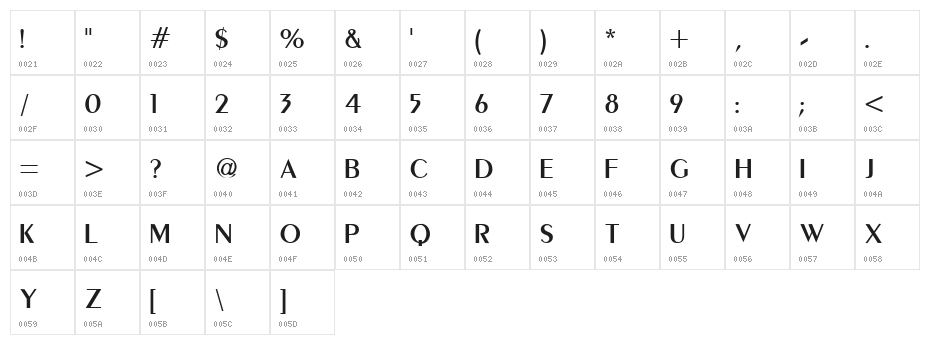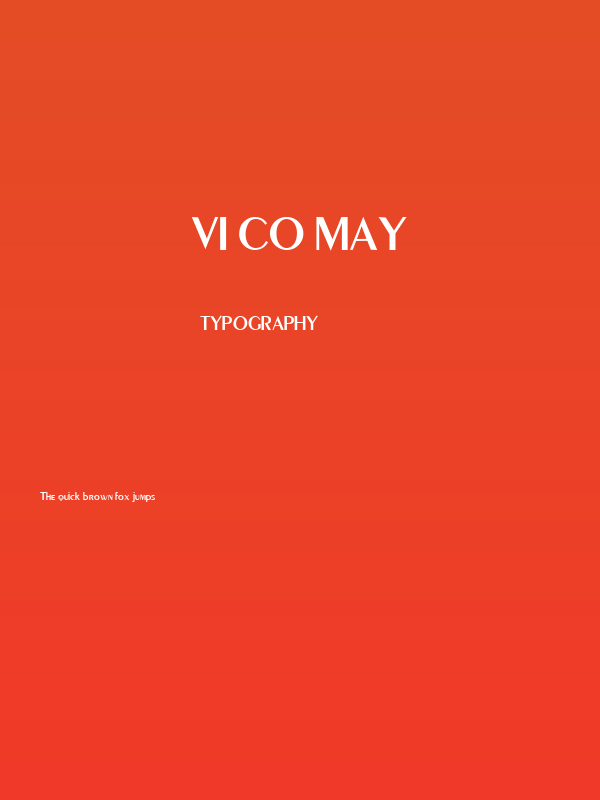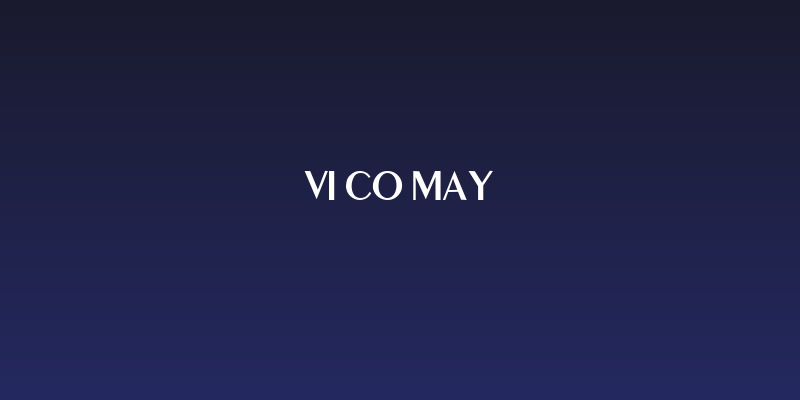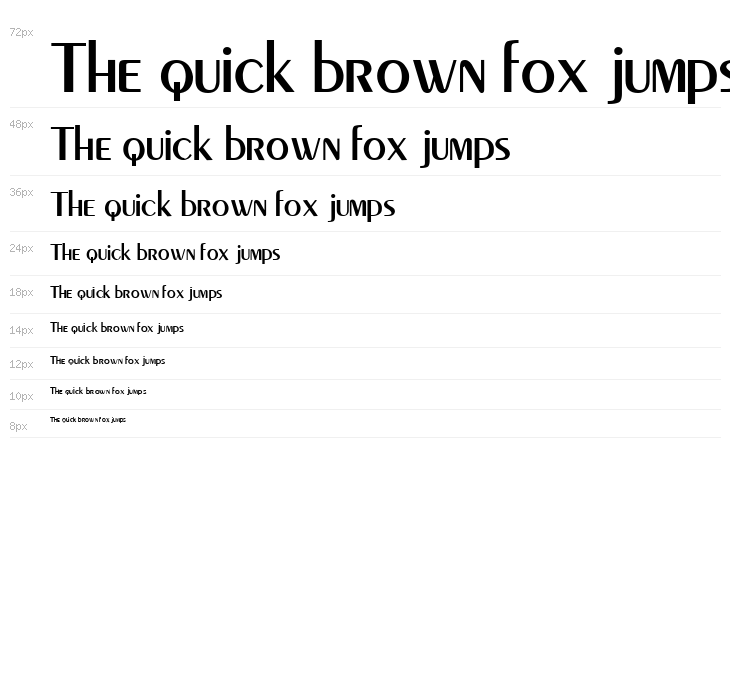
VI Co May Font
VI Co May Description
This font features a bold and striking design with a modern aesthetic. The characters are crafted with a high contrast in stroke thickness, giving them a dynamic and impactful appearance. The uppercase letters are particularly bold, while the lowercase letters maintain a consistent style with slight variations in stroke width. The numerals are designed to match the boldness of the letters, ensuring a cohesive look across all characters. Special characters are included, maintaining the same bold and modern style. The overall design is clean and versatile, suitable for a variety of applications.